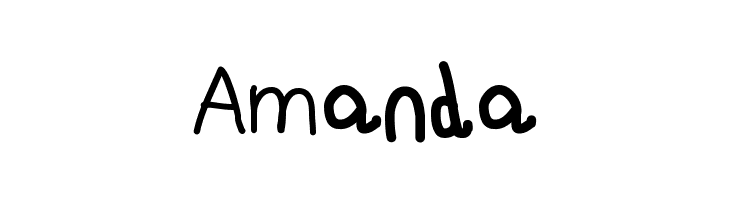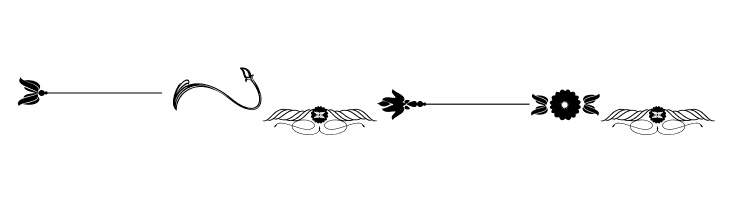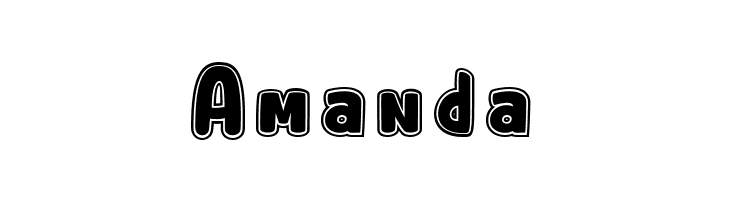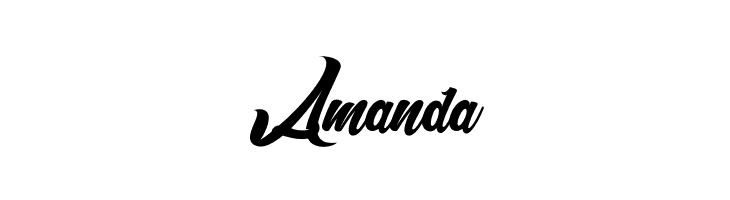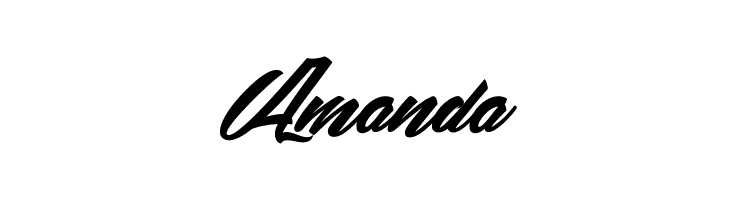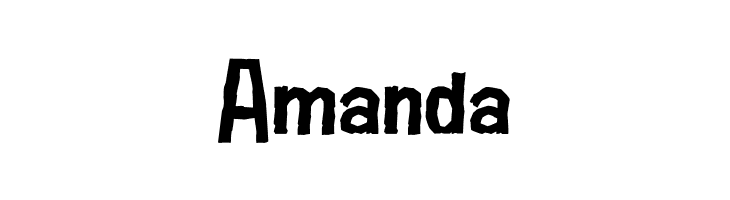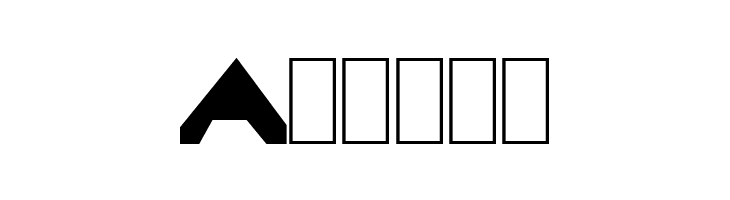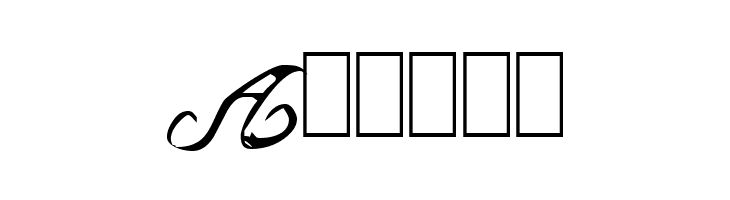
A dynamic, brush-stroke font with a hand-drawn, energetic style.
An elegant, flowing script font with thin, elongated letterforms and graceful curves.
A modern, italicized font with sleek, elongated characters and consistent stroke width.
A jagged, hand-drawn font with a spooky, energetic style.
A playful, handwritten font with elongated, slanted letterforms and consistent stroke weight.
A bold, dynamic script font with elegant curves and flourishes.
A bold, playful font with thick, rounded edges and a strong outline.
A bold, rounded font with a playful and chunky style.
An ornate and decorative font with intricate flourishes and embellishments.
A bold, energetic, hand-drawn style with a playful and dynamic appearance.
A dynamic, brush-style font with an energetic, handwritten feel.
A playful, bold font with rounded, thick strokes and a friendly appearance.
A bold, playful font with rounded, outlined characters.
A bold, cursive font with elegant flourishes and high contrast.
A bold, brush-style script font with dynamic and expressive strokes.
A playful, rounded font with smooth curves and consistent stroke width.
A modern, rounded font with consistent stroke width and playful design.
A bold, brush-style font with dynamic, hand-drawn strokes.
A bold, cursive font with elegant, flowing strokes and dramatic flourishes.
A bold, rugged font with a hand-drawn, graffiti-like style.
A bold, elegant script font with smooth curves and dramatic swashes.
A bold, geometric, and abstract decorative font with unique character designs.
An ornate, vintage-style font with decorative swirls and flourishes.
A geometric, stencil-like font with a bold, industrial design.
Ornamental and decorative border and flourish glyph set.
A decorative font with whimsical, hand-drawn illustrations and playful text.
A playful, bold font with rounded edges and a friendly appearance.
A bold, outlined font with a playful and cartoonish style.
A bold, rounded font with a playful and friendly style.
Decorative dingbat font featuring ornate frames and banners.
( Fonts by dcoxy )
An intricate decorative font with elaborate ornamental designs.
( Fonts by dcoxy )
An ornate, decorative font with intricate swirls and flourishes.
( Fonts by dcoxy )
Highly decorative ornamental flourish font for embellishments.